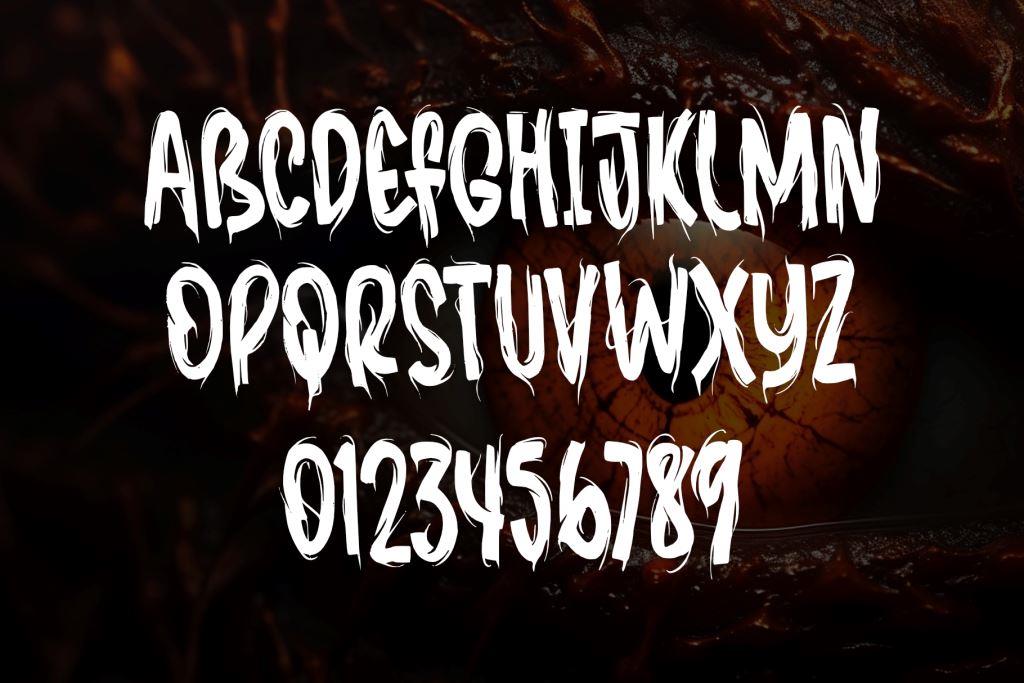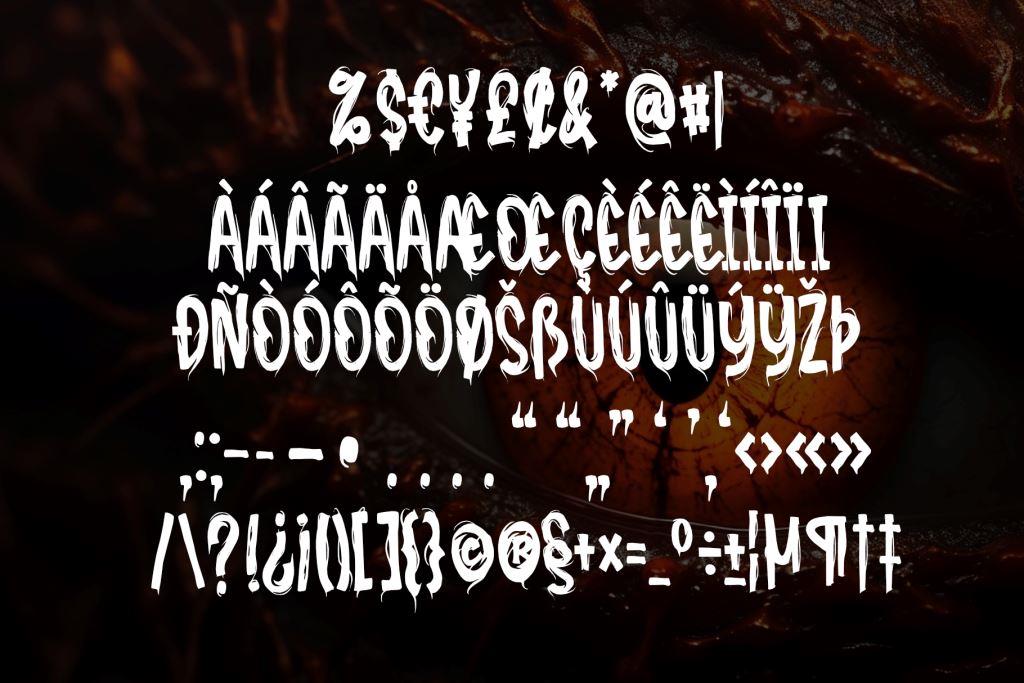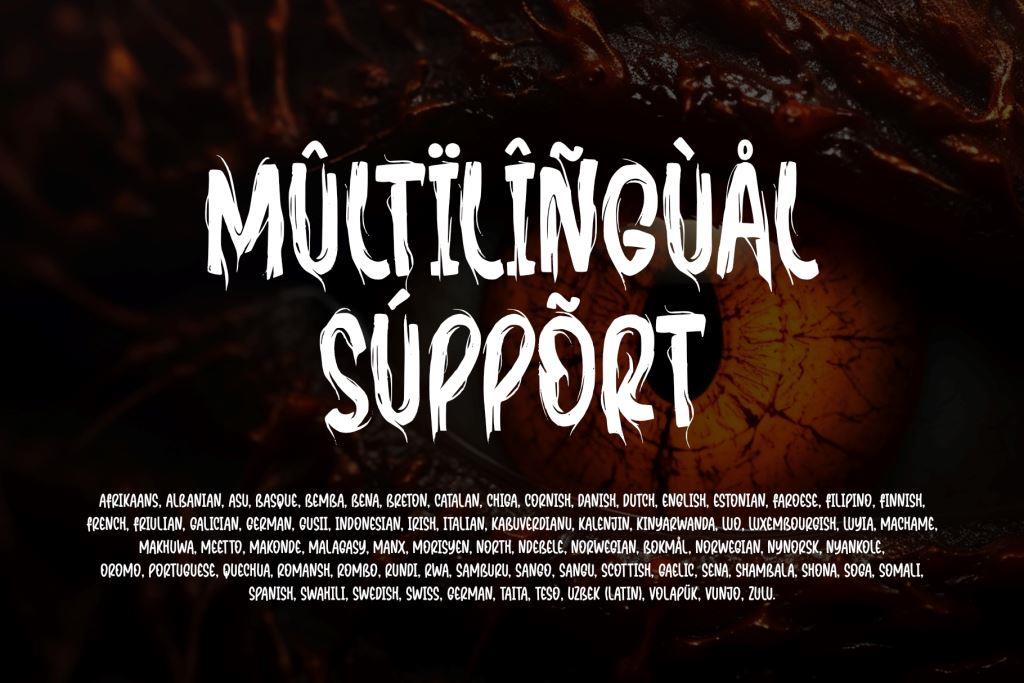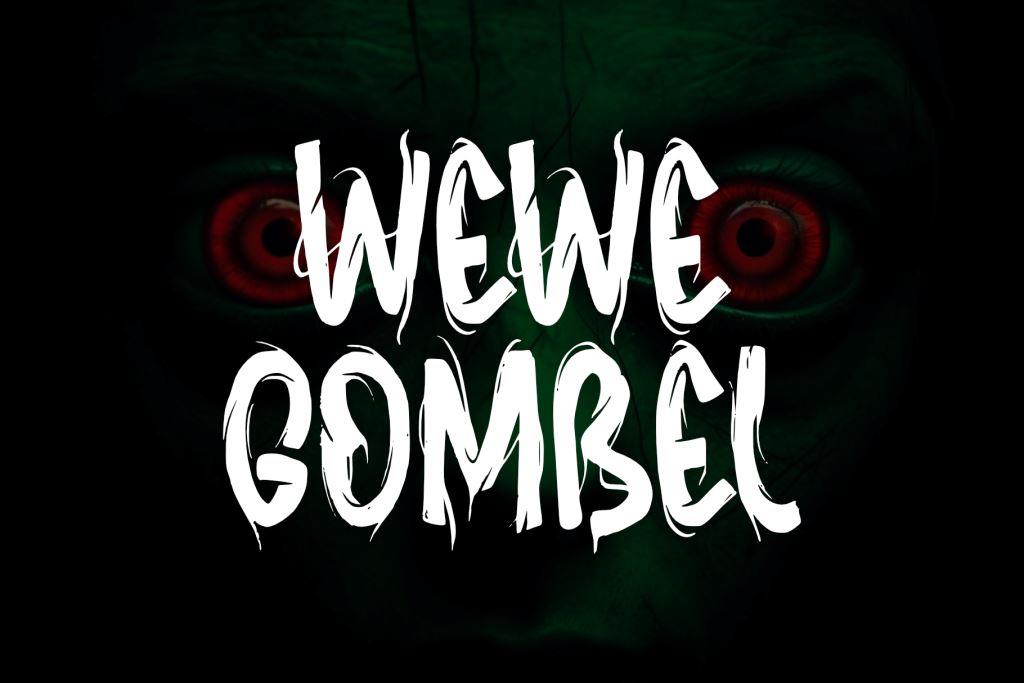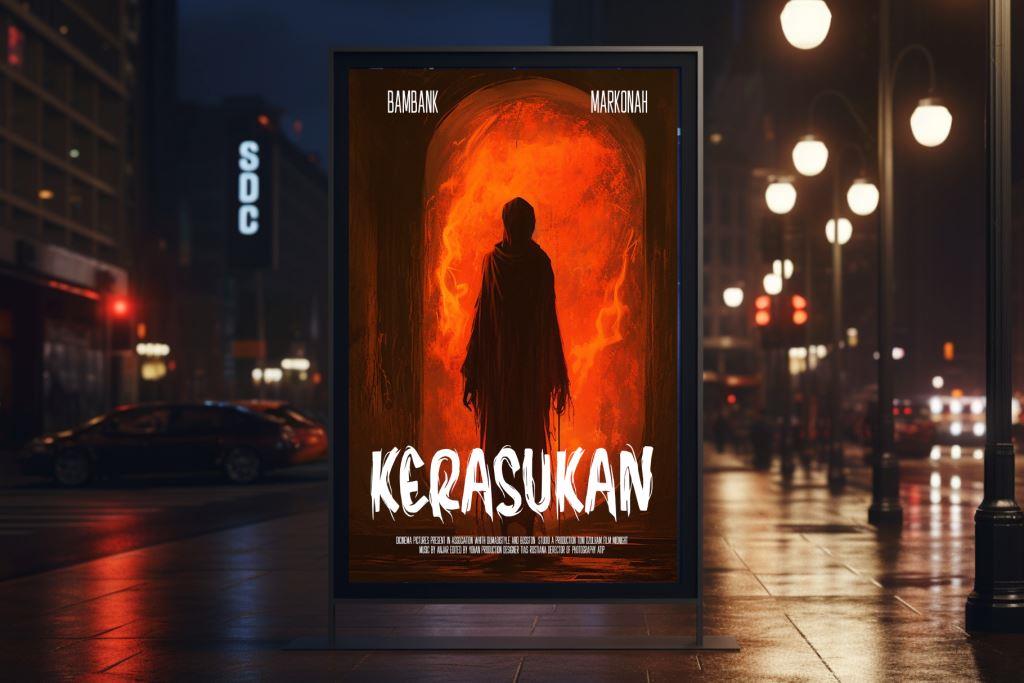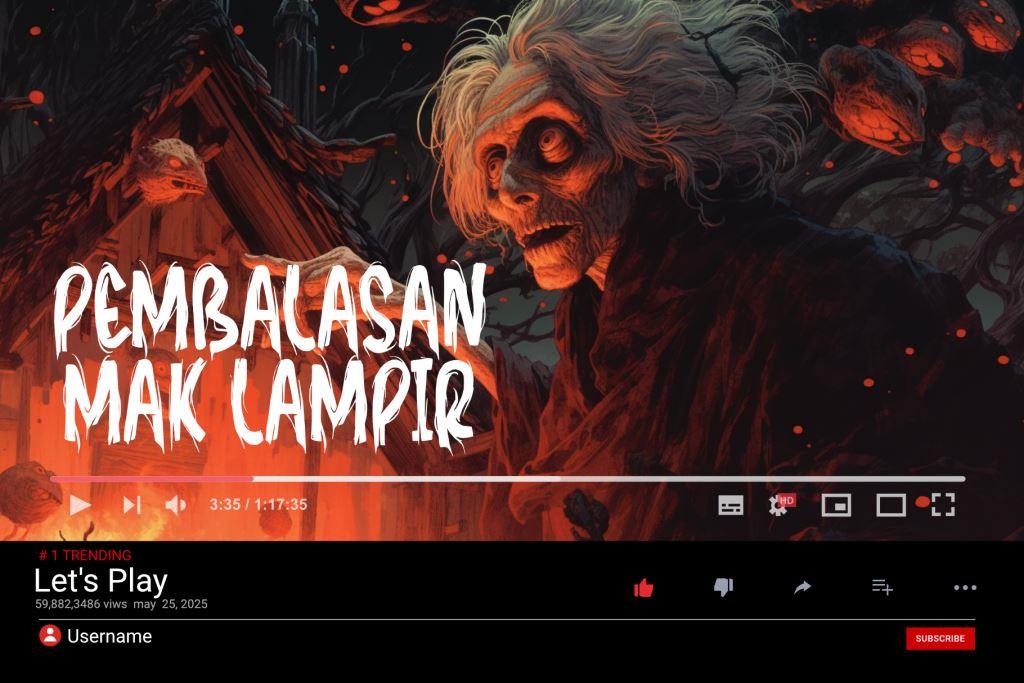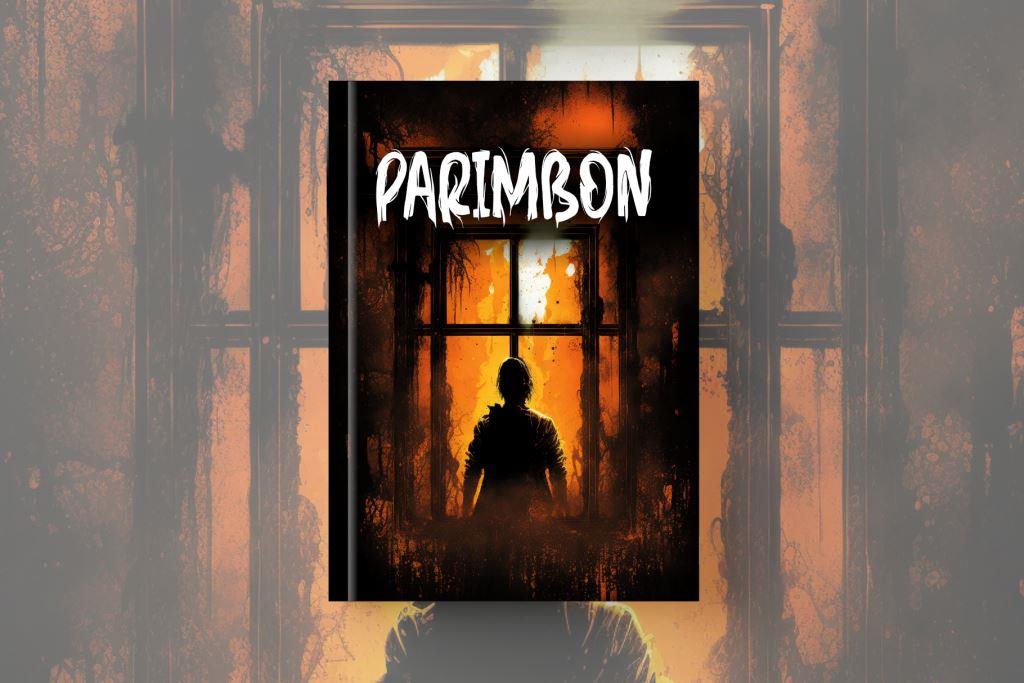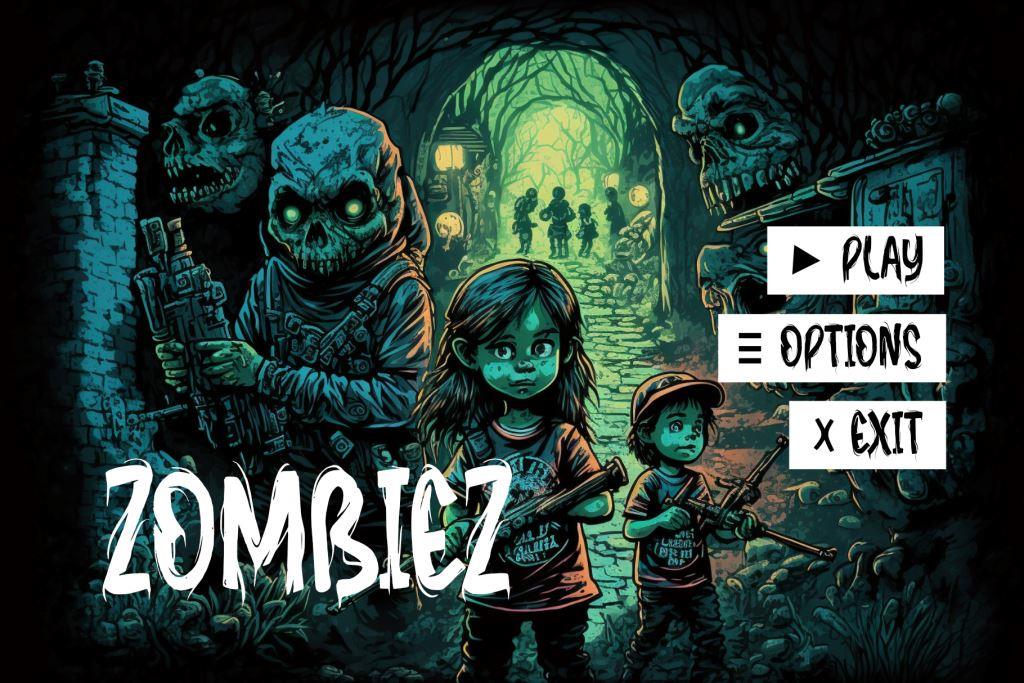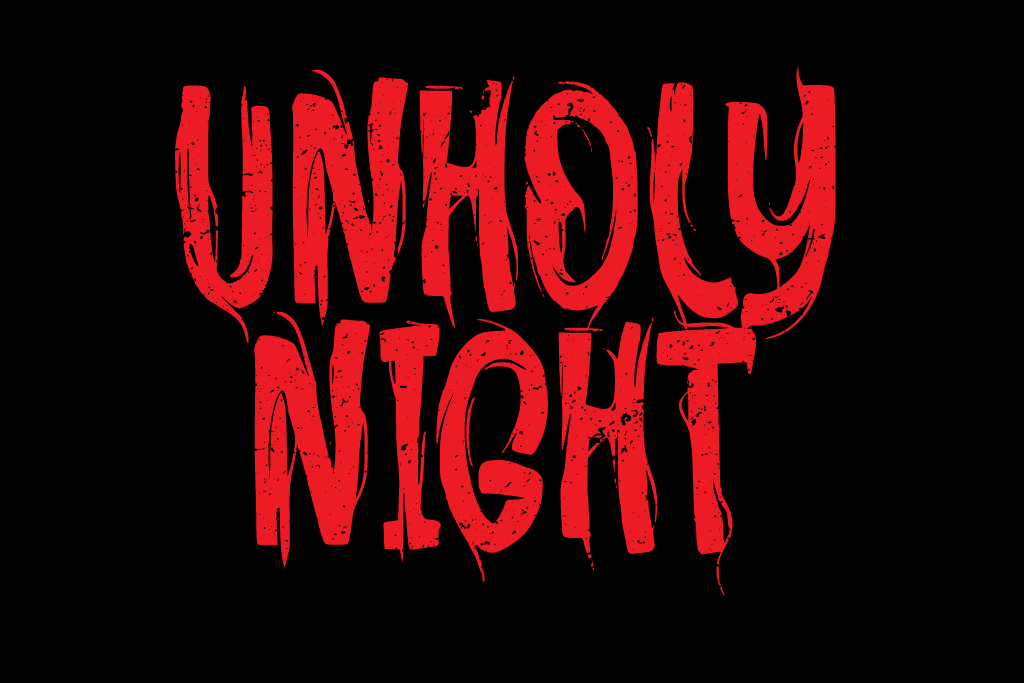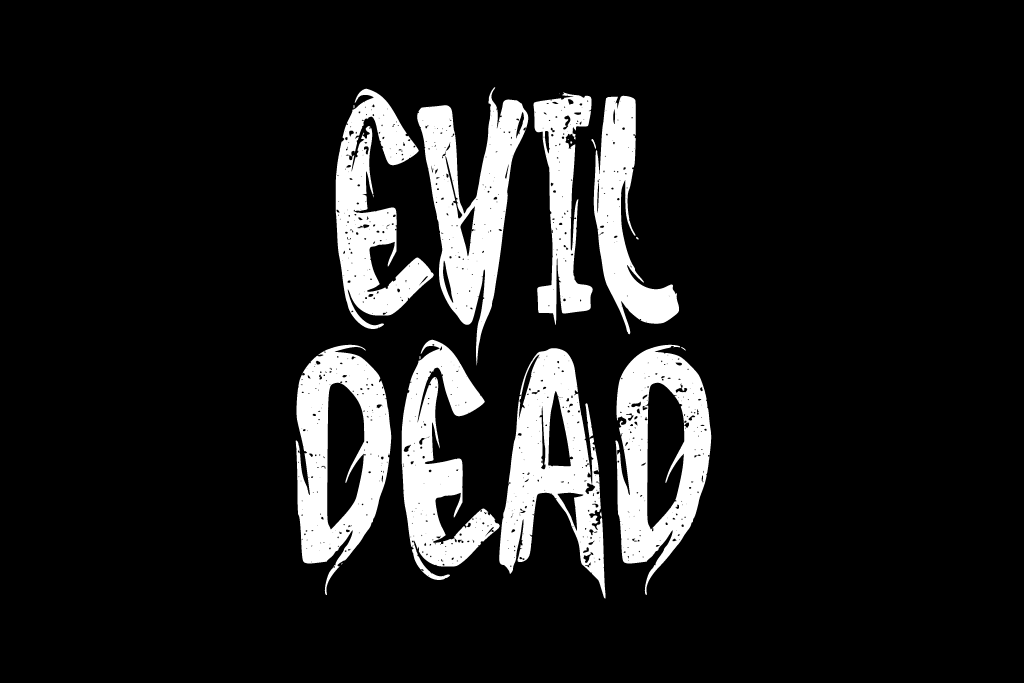
- Charmer Horror
Charmer Horror font is a type of lettering that combines elements of horror with a touch of mysterious hallucination. With thin lines moving in various directions, this font creates an atmosphere full of tension and uncertainty. Its characters may appear as if they are moving or vibrating, creating a frightening optical effect.
With each letter, you will feel a kind of dark charm enveloping the text. The “Charmer Horror” font evokes images of nightmares and feelings of hallucination lurking in the darkness. It is the perfect typeface for creating a chilling atmosphere in your designs, such as horror movie posters, spooky storybooks, or promotional materials for scary events. With a touch of hallucination and thin lines that make you feel like you’re entering a chilling maze of thoughts, “Charmer Horror” will make every text eerie and unforgettable.